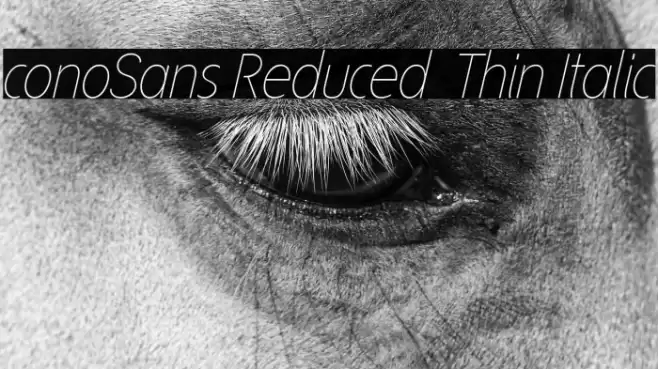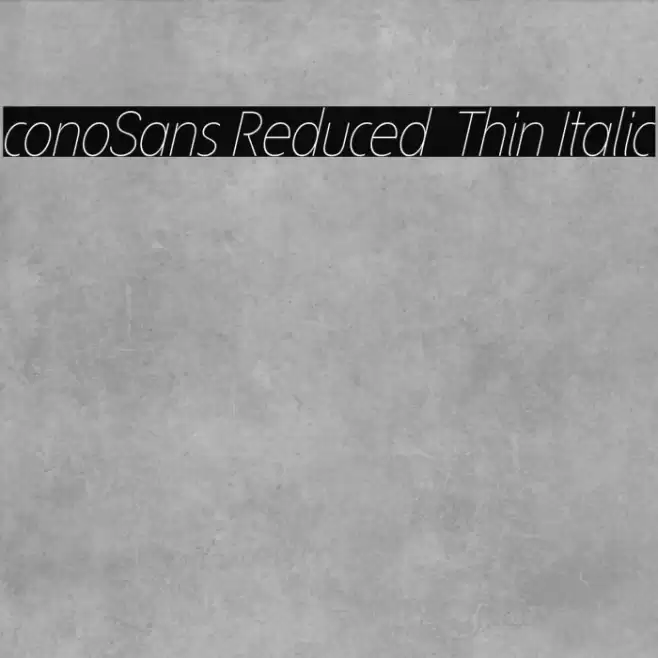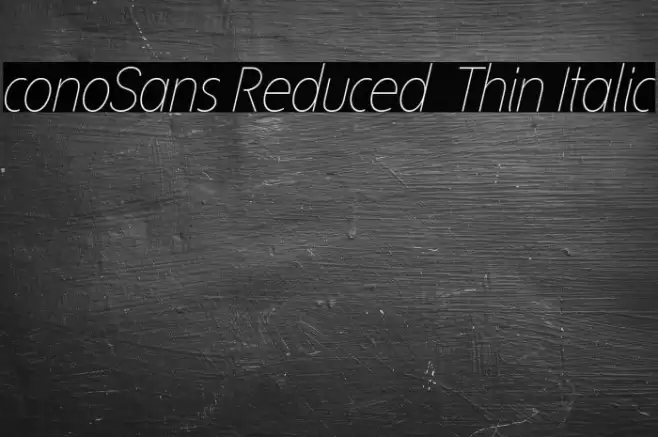
ÉconoSans Reduced 36 Thin Italic Font
ÉconoSans Reduced 36 Thin Italic Description
This font features a sleek, modern design with a thin, elegant structure. The italicized style adds a sense of motion and sophistication, making it ideal for contemporary projects. The characters are well-proportioned, with a consistent stroke width that gives it a clean and minimalist appearance. The uppercase and lowercase letters maintain a harmonious balance, while the numerals and special characters are designed to complement the overall aesthetic. This font's refined look is suitable for a variety of applications, from digital interfaces to print media.
A thin, modern italic font with a sleek and elegant design from Uncategorized fonts.